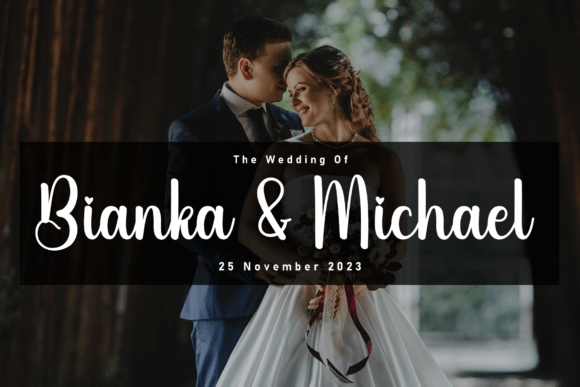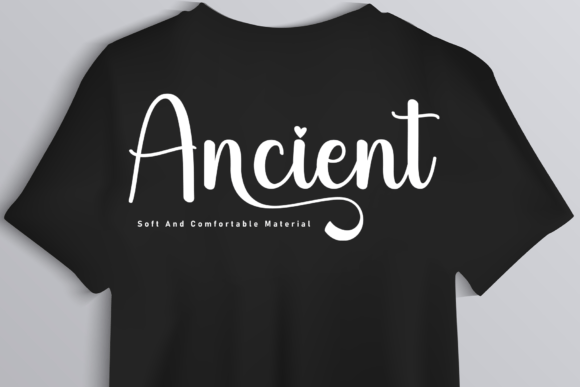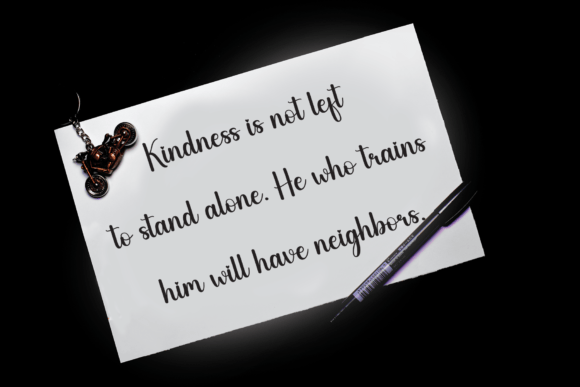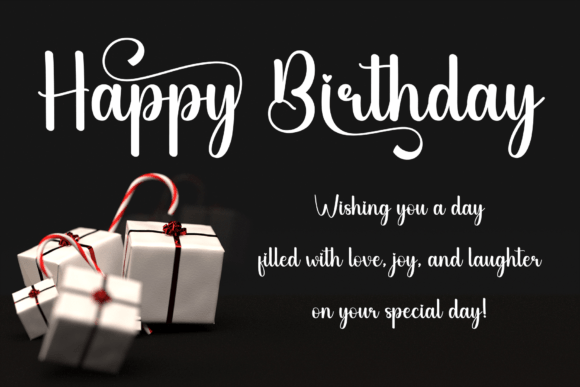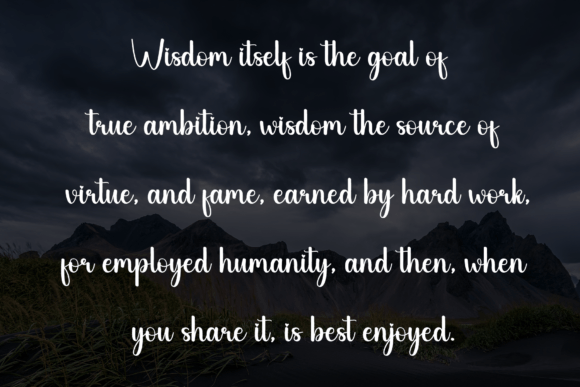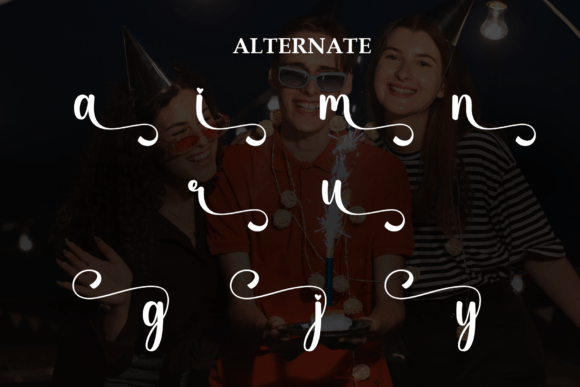
The Groovy Font: A Sweet and Friendly Handwritten Display Font
Have you ever been working on a design project, and suddenly, you’re stuck on finding the perfect font? I recall a wedding invitation design project where I struggled to find a font that captured the playful yet elegant vibe my client wanted. That’s when I stumbled upon the Groovy font, and it instantly became my go-to choice. In this article, we’ll dive into the world of Groovy, exploring its features, uses, and some fantastic alternatives.
A Personal Review of Groovy Font
As a designer, I always look for fonts that are not only visually appealing but also versatile and easy to use. Groovy font exceeded my expectations in many ways. Here’s what I love about it:
- ✨ Sweet and friendly vibe: Groovy has a unique, handwritten feel that adds a touch of warmth to any design.
- ✅ Cute and fun: This font is perfect for designs that require a playful twist, such as wedding invitations, greeting cards, or social media graphics.
- 💕 Highly legible: Despite its playful nature, Groovy remains clear and easy to read, even at smaller font sizes.
While Groovy is an excellent font, it’s not without its quirks:
- 🤔 Limited formal use: Due to its playful nature, Groovy might not be the best fit for formal or corporate designs.
- ⚠️ Glyph limitations: While Groovy has a range of glyphs and stylistic alternates, it might not have the extensive character set you need for certain projects.
The Story Behind Groovy Font
Groovy font was designed with the intention of creating a friendly, approachable typeface that captures the essence of handwritten text. The designer aimed to craft a font that’s both cute and elegant, perfect for a wide range of creative projects. While the actual design process is shrouded in mystery, it’s clear that the goal was to create a font that brings a smile to the reader’s face.
| Font Name | Groovy Font |
| What is the best use for Groovy font? | Groovy font is ideal for designs that require a playful, friendly touch, such as wedding invitations, greeting cards, and social media graphics. |
| Is Groovy font suitable for formal designs? | While Groovy has a unique charm, it might not be the best fit for formal or corporate designs due to its playful nature. |